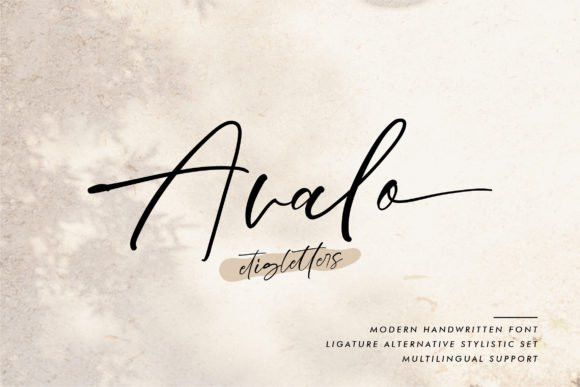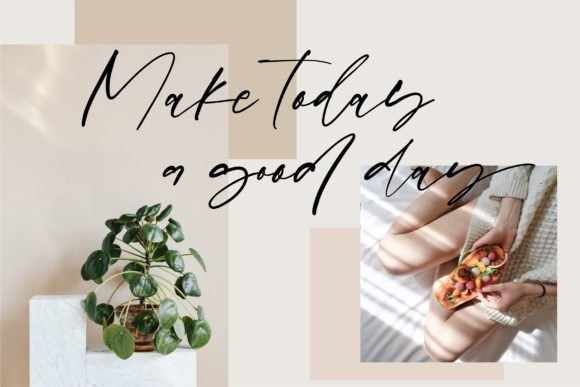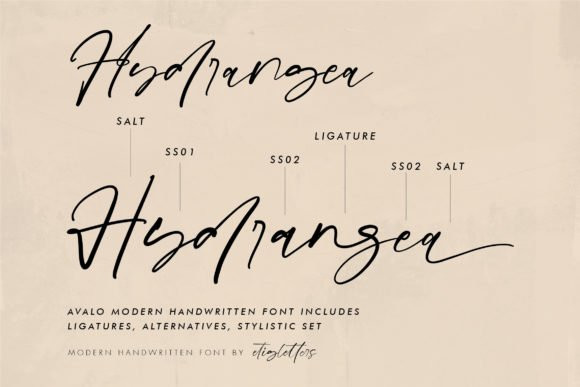
Avalo Font
Avalo FontAvalo is a relaxed, flowing and stylish handwritten font. This font is PUA encoded which means you can access all of the glyphs and swashes with ease!
Not too thin and not too thick, balanced and varied, Avalo was designed to enhance the beauty of your projects.